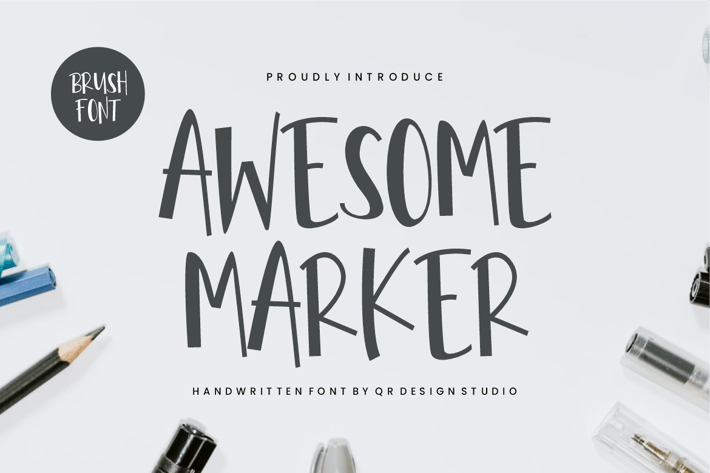
Awesome Marker Font
Awesome Marker Font is a bold and brush font.
The font is suitable for any branding project like poster, marker, logo, sport, and many more.